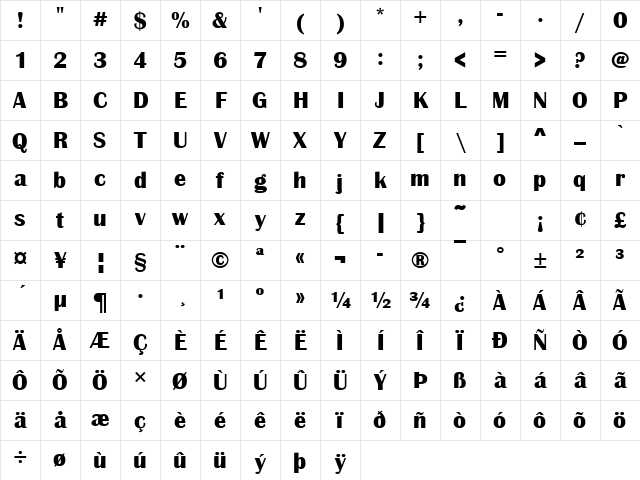
BritannicTBol Regular
BritannicTBol Family
Design Context for BritannicTBol
BritannicTBol is a composed and adaptable typeface that performs quietly and consistently across a wide range of design contexts.